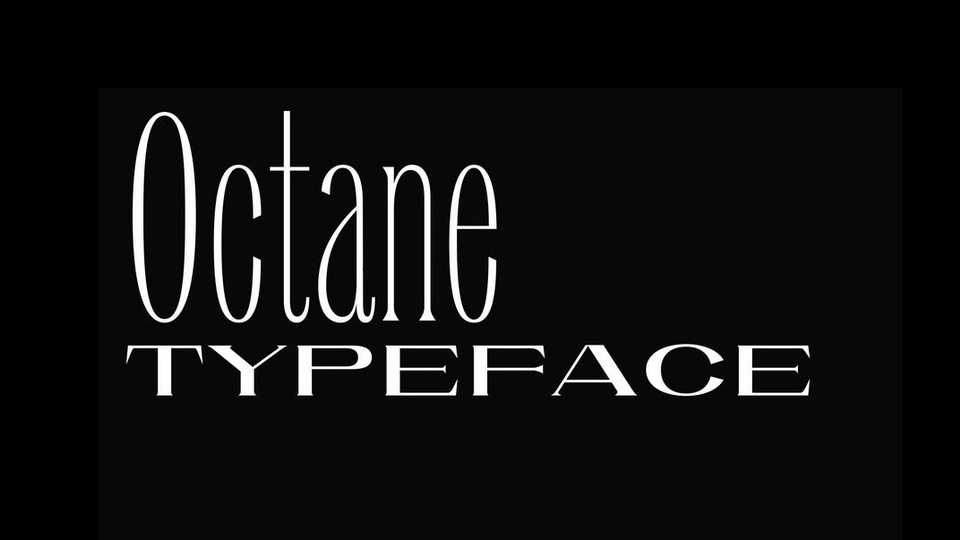
Download Octane font, a variable serif typeface with two axes, weight and width initially created to fit with any car designed by Pininfarina.
Designer: Paul Coumoul